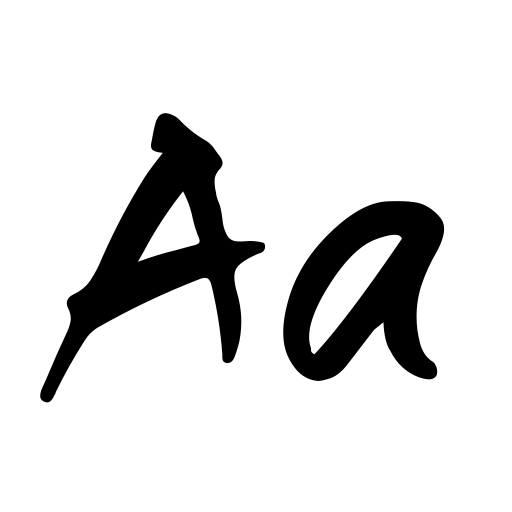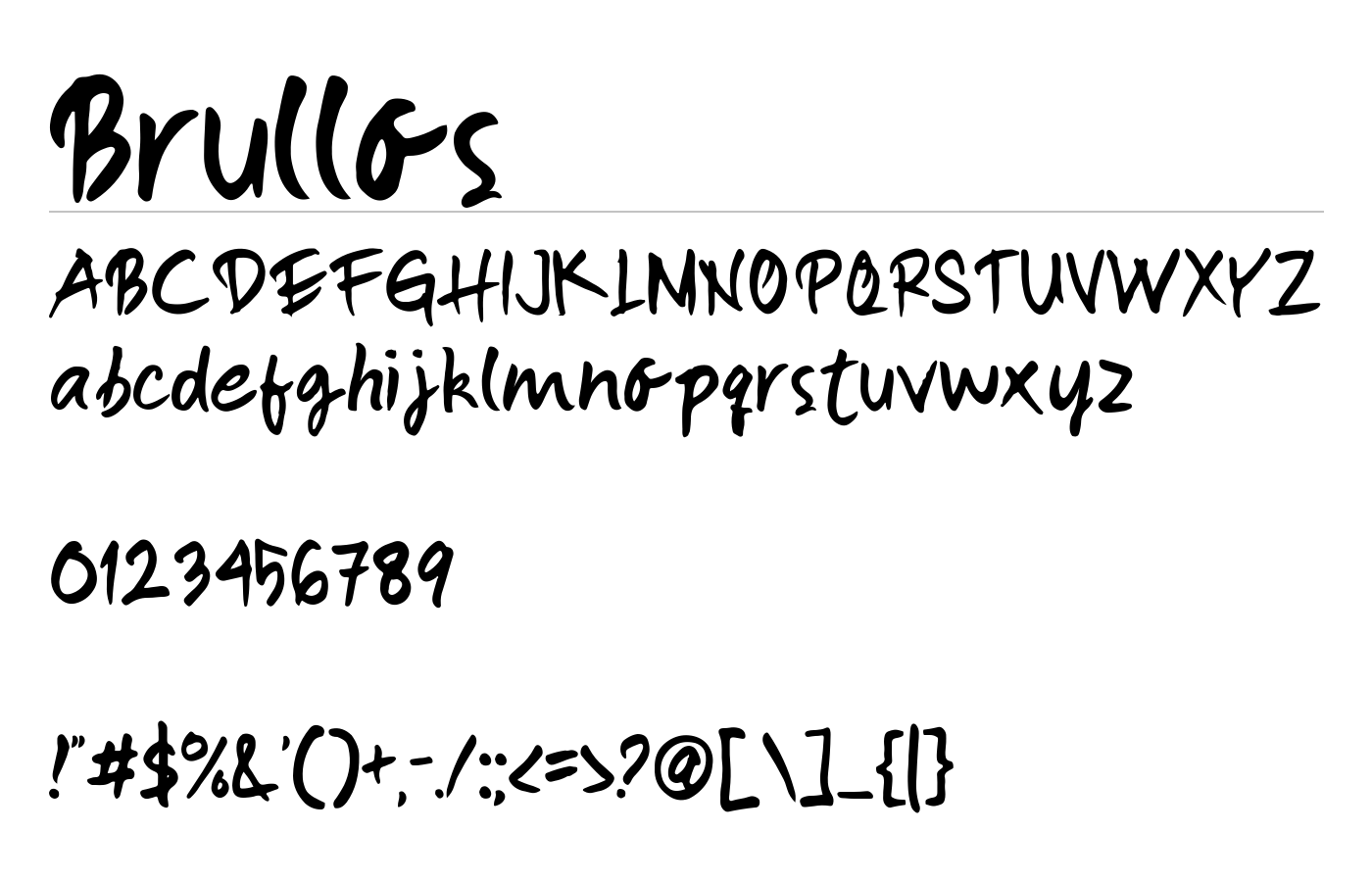
Brullos is a lively handwritten font with a casual, brush-script style that exudes personality and energy. Its medium weight and irregular, slightly condensed shapes give it a playful yet approachable feel, making it perfect for creative projects, informal branding, and eye-catching headlines. This font works well where a personal, artistic touch is needed, such as logos, posters, or social media visuals.